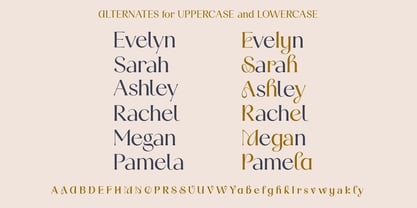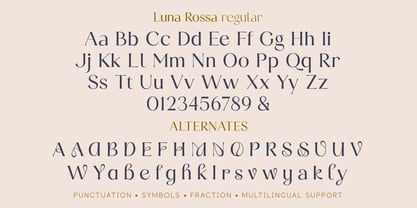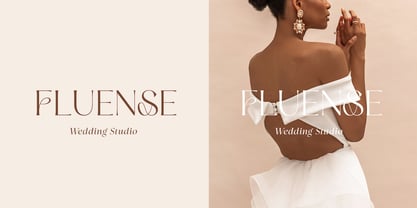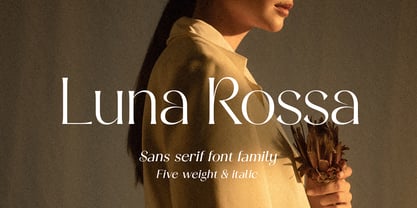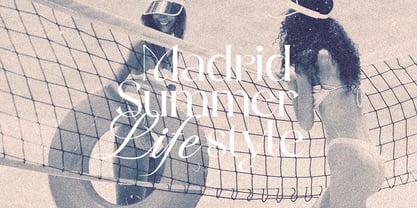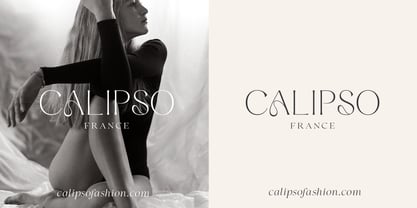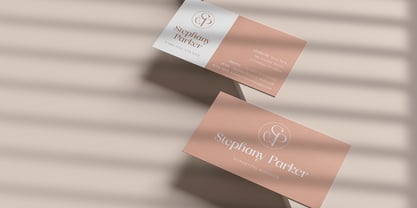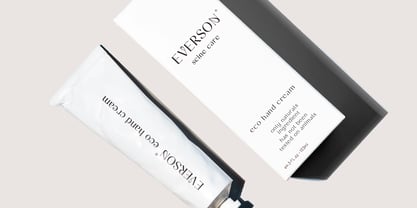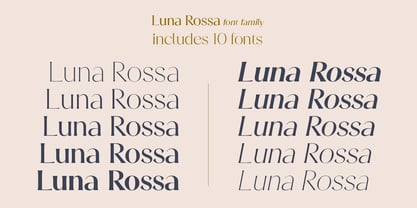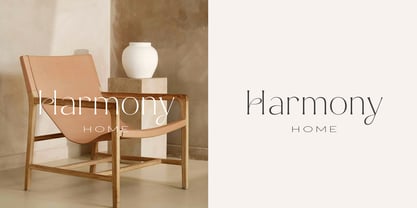
Luna Rossa
by Larin Type Co
The Luna Rossa Font Family was designed by Pavel Larin and published by Larin Type Co. Luna Rossa contains 10 styles and family package options. More about this family
Luna Rossa is an elegant, modern, and expressive contrast sans-serif font family, offering a stylish solution for your design needs. It features both upright and italic styles, each available in four weights ranging from extra light to bold. This versatile font is ideal for fashion projects, providing a contemporary look that is easy to read. With Luna Rossa, you can craft stunning logos, eye-catching banners, impactful advertising, attractive packaging, and compelling book covers and magazine layouts. Its diverse applications make it perfect for headings, descriptions, and much more, ensuring your projects stand out with sophistication and flair.